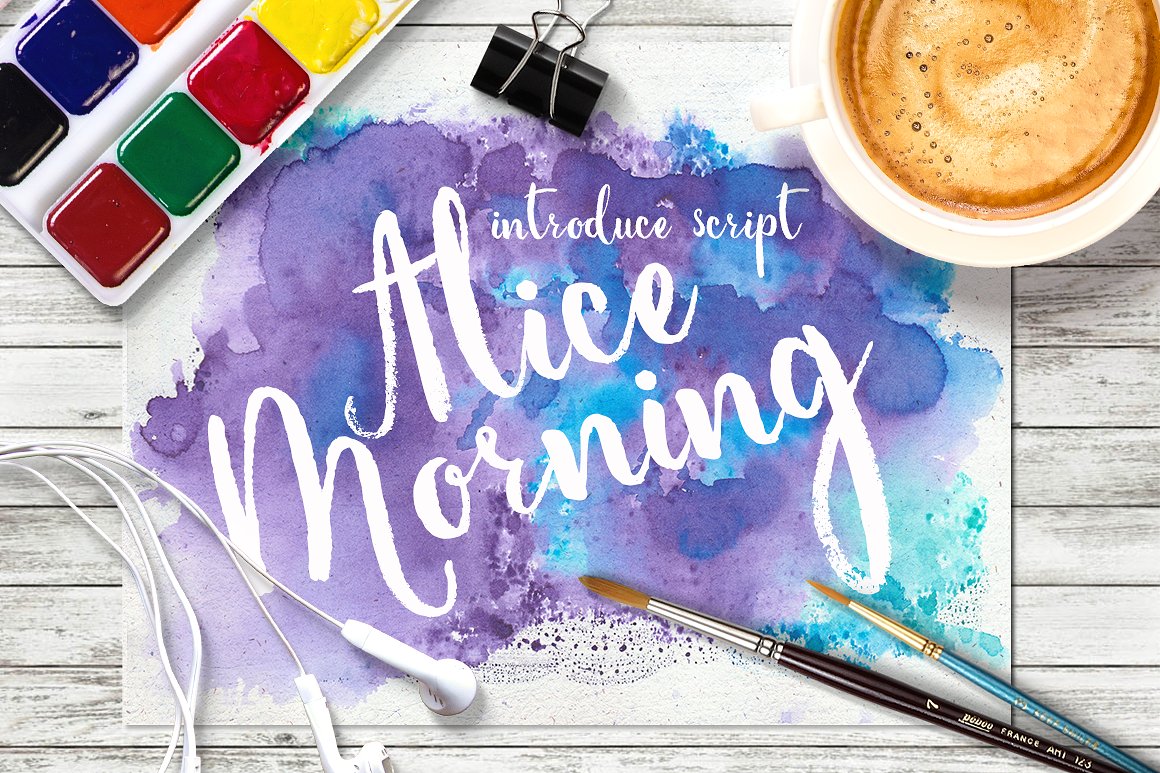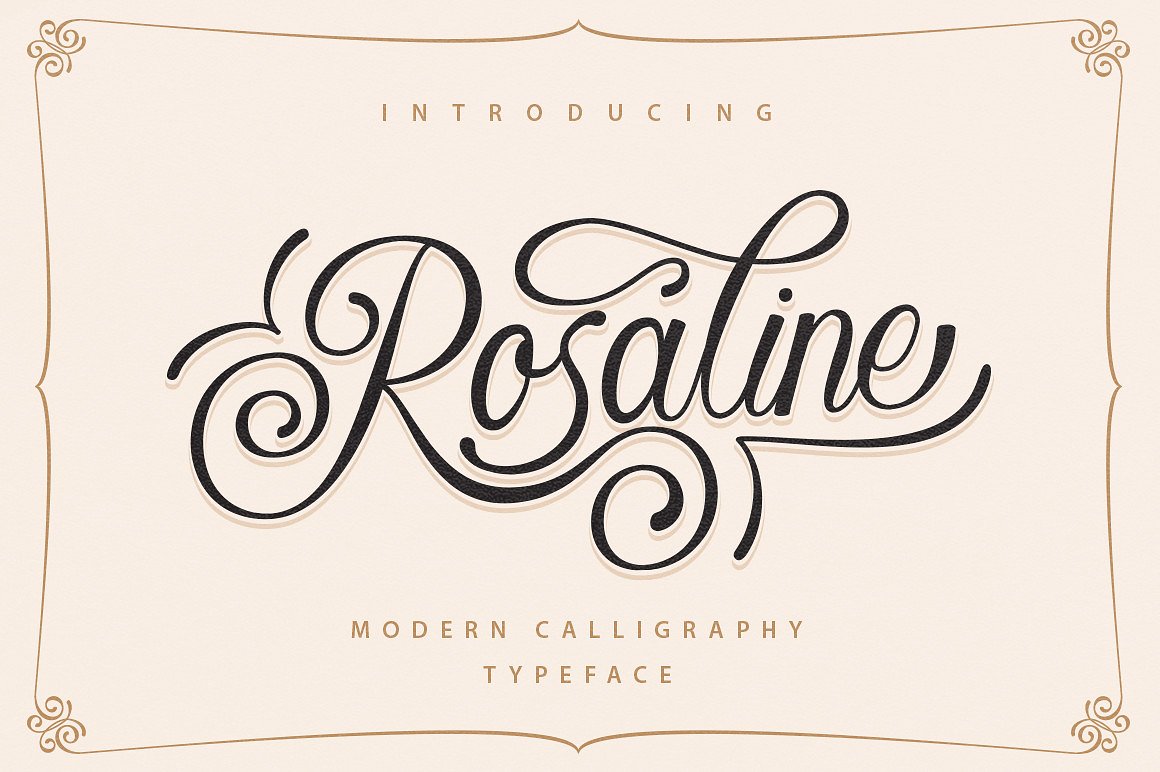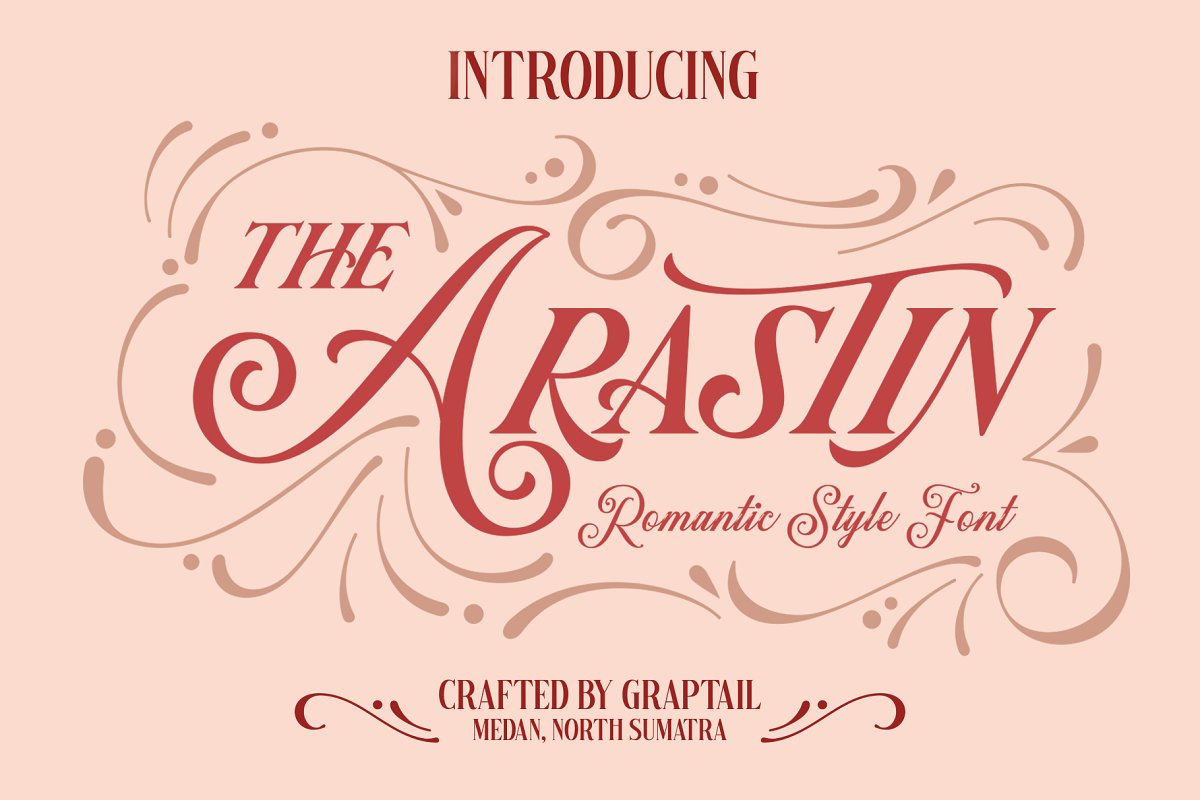
30+ Best Decorative Fonts for Beautiful & Attractive Designs
You know when the font are so amazing that you want to give it pride of place somewhere special?
We’ve handpicked a generous list of the finest typefaces, that we think will find a perfect home on your small branding projects, packaging design work, web design or any time you need to label with love.
In this beautiful list we gathered 30+ best beautiful decorative fonts to make your design visible for plenty of “hungry” designers who search something attractive and different. Enjoy!
Grange – Premium Serif Font
Weddings or headings, fashion spreads to mastheads, monogram or Instagram, Grange can do it!
Athena is a new stylish serif typeface with a modern touch, combining regular and thin stroke widths together with elegant flourishes for a beautiful result. This font is perfect for headlines and display text, it also has good readability at smaller sizes.
Arastin come with the lowercase and uppercase of the display romantic style like a script, italic, and caps. Its outer curve flows without interruption. In one swift move, from nose to tail.
Whisholder is a vintage and retro typeface with beautiful decorative ornaments which is inspired by vintage lettering sign and art.
Drops Font
Bonfire – Free Script Font
Bonfire is another great hand drawn brush font from Hustle Supply Co. It comes with 2 sets of Capital letters and is equipped with a few different alternate lower case characters as well as unique swashes and western european characters.
Koras Font
Made for giving minimalistic titles. Koras packs a set of capitals, numbers and punctuation. Font for design greeting, prints, web design, invitation, business cards.
Introducing Alice Morning! Hand Drawn brush font + 30 watercolor backgrounds. Awesome for decoration your staff! Also, you can use it for business card, greetings, postcard, posters and much more.
Introducing Raph Lanok Typeface which has a elegant hand lettering brush style. So it looks natural like a handmade, because Raph Lanok family have a more choice characters. This font is best used for your design project that has the concept of fun, brave and sporty. Can also be applied to the design of a logotype, header website, make some lettering a quote, t-shirt design etc.
Willful Handwritten Brush Font
Introduce Willful – juicy and vibrant handwritten brush font for a designer’s choosy heart, that’s a perfect match for any tricky artwork you keep in mind. Combine it with minimalistic thin typefaces or use it separately – the result will pass over your expectations – no matter if you prepare a set of vacation postcards for your mates or a huge web project for a client.
Rosaline is a modern calligraphy. Rosaline a beautiful for logotype, website header, fashion design,wedding card design and any more. Rosaline comes with elegant style. It contains a full set of lower & uppercase letters, a large range of punctuation, numerals, and multilingual support.
Info / Download SourceJe T’aime – Handmade Font + Bonus
This gorgeous font has all that we always wanted: is beautiful, stylish, 100% handmade and its was made with tons of love! Its perfect for every need and it will definitely help your designs to be even more perfect! Free your creativity with Je T’aime font!
Info / Download SourceTricky Artist Font
Info / Download SourceHenrik – Free Sans Serif Font
Henrik is extremely versatile and excellent for achieving that vintage aesthetic with your designs. It features textured upper case characters and select punctuation that will work great in branding, badges, labels, apparel, headlines and much more!
Download SourceNew Wish Font Script
Coco Free Font
Afattal Typeface
Give your designs an authentic handcrafted feel. “Afattal Typeface” is perfectly suited to signature, stationery, logo, typography quotes, magazine or book cover, website header, clothing, branding, packaging design and more.
Info / Download SourceSwave Typeface
SWAVE – a combination of brush and doodle! will great on poster, flyer, t-shirt, your brand identity, invitation like greeting cards, branding materials, business cards, quotes, posters, and more!
High quality script font with multilingual support and a large number of special characters. Designed by Måns Grebäck, this hand-crafted typeface works great in logotypes and for titles and slogans.